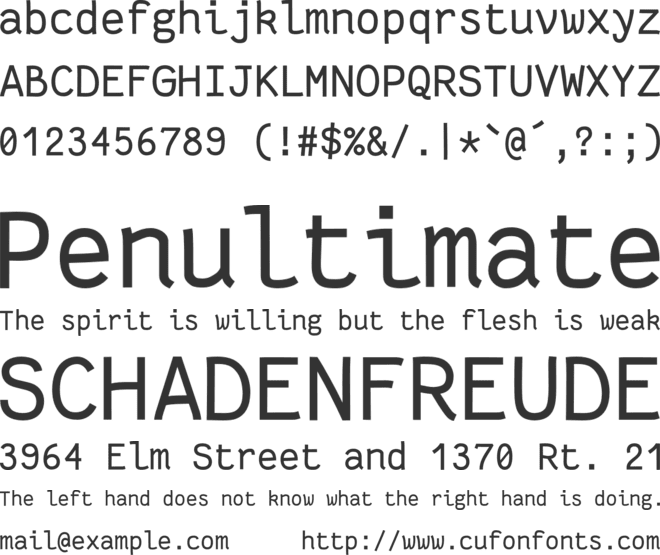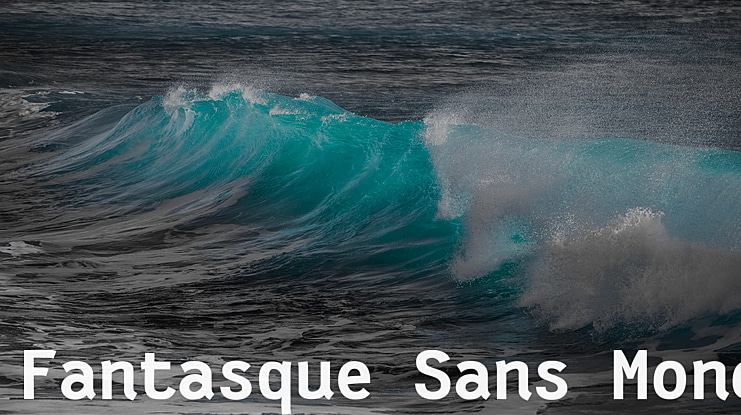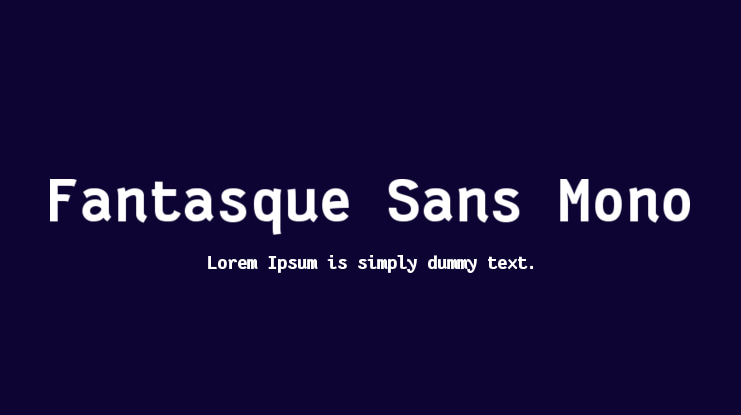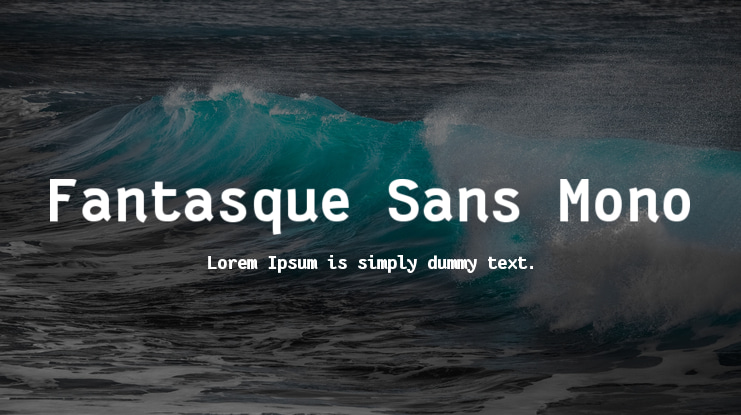
A programming font, designed with functionality in mind, and with some wibbly-wobbly handwriting-like fuzziness that makes it unassumingly cool.
Previously known as Cosmic Sans Neue Mono. It appeared that similar names were already in use for other fonts, and that people tended to extend their instinctive hatred of Comic Sans to this very font of mine (which of course can only be loved). Why the previous name? Here is my original explanation:
The name comes from my realization that at some point it looked like the mutant child of Comic Sans and Helvetica Neue. Hopefully it is not the case any more.
Inspirational sources include Inconsolata and Monaco. I have also been using Consolas a lot in my programming life, so it may have some points in common.